Introduction: The Power of Typography in Tattoo Font
A tattoo is more than a visual statement, it’s a reflection of identity, story, and emotion. While imagery often takes the spotlight, typography plays an equally powerful role in shaping meaning. The right tattoo font transforms simple words into expressive art, combining readability with personal symbolism.
In tattoo design, typography isn’t chosen randomly. It carries personality, culture, and intention. A strong, well-chosen font enhances the emotional message behind the tattoo while reinforcing its visual impact. That’s why Putracetol Studio has curated a collection of fonts that blend artistry and individuality, providing inspiration for tattoo artists, designers, and clients who want their ink to feel truly personal.
The Meaning Behind Tattoo Fonts
Fonts in tattoo art communicate mood, heritage, and emotion. Each lettering style has its own energy, some evoke romance and spirituality, while others express rebellion or strength.
- Script fonts flow like handwriting, symbolizing elegance, love, or faith.
- Blackletter fonts reflect history, authority, and gothic tradition.
- Tribal and metal styles convey boldness, edge, and raw power.
Choosing a tattoo font is not just an aesthetic decision, it’s about aligning visual form with emotional meaning. Whether the tattoo celebrates personal triumph, cultural pride, or artistic rebellion, typography anchors the message.
How to Choose the Right Tattoo Font
When selecting a tattoo font, consider three key factors:
- Personal Meaning – The font should reflect the message or story behind the tattoo. A romantic quote pairs well with elegant script fonts, while a motivational phrase fits strong, angular letterforms.
- Visual Style – The style must match the design’s overall tone. For example, modern tattoos may incorporate clean lines, while gothic tattoos use intricate letterforms.
- Readability – A tattoo must remain legible across sizes and placements. Even decorative fonts should maintain clarity.
By balancing these three elements, artists can create tattoos that feel authentic and timeless.
16 Inspiring Tattoo Fonts from Putracetol Studio
Here’s a curated selection of fonts that showcase the power of tattoo typography, each with distinct personality, purpose, and emotion.
1. Winged Words
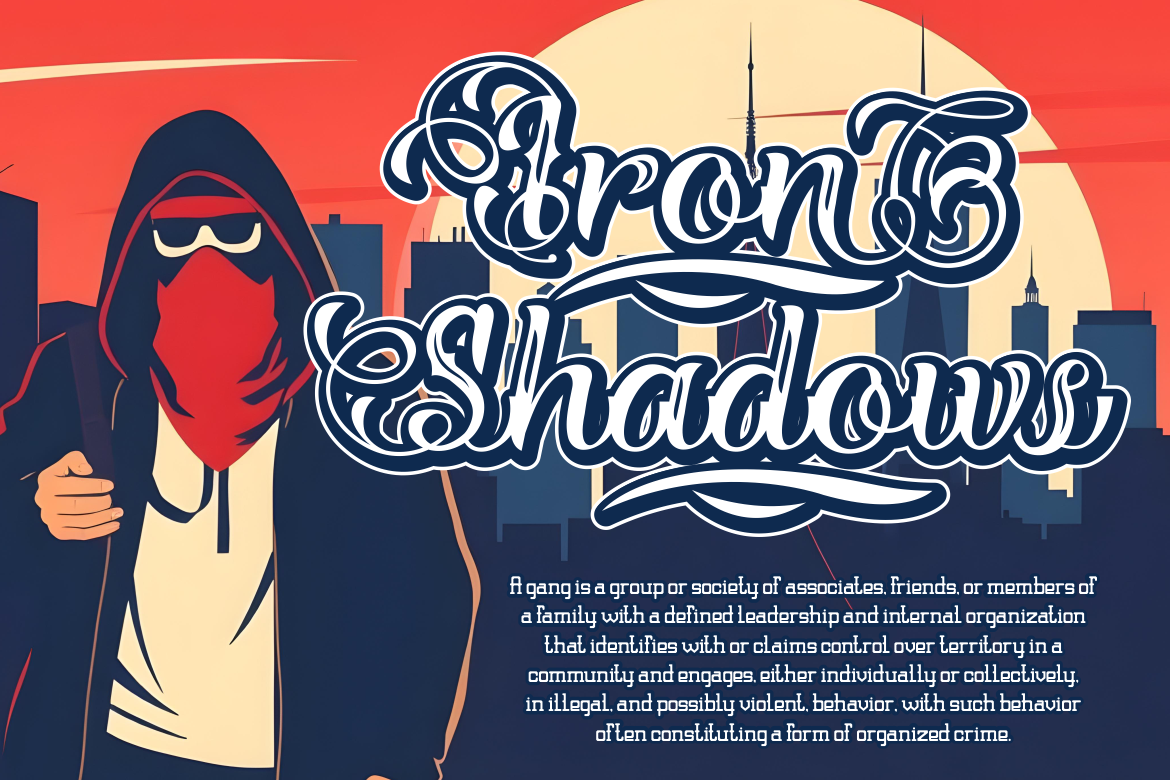
An expressive tattoo font with elegant curves and flowing lines, perfect for script tattoos that symbolize love, freedom, or poetic emotion.
2. Candrika
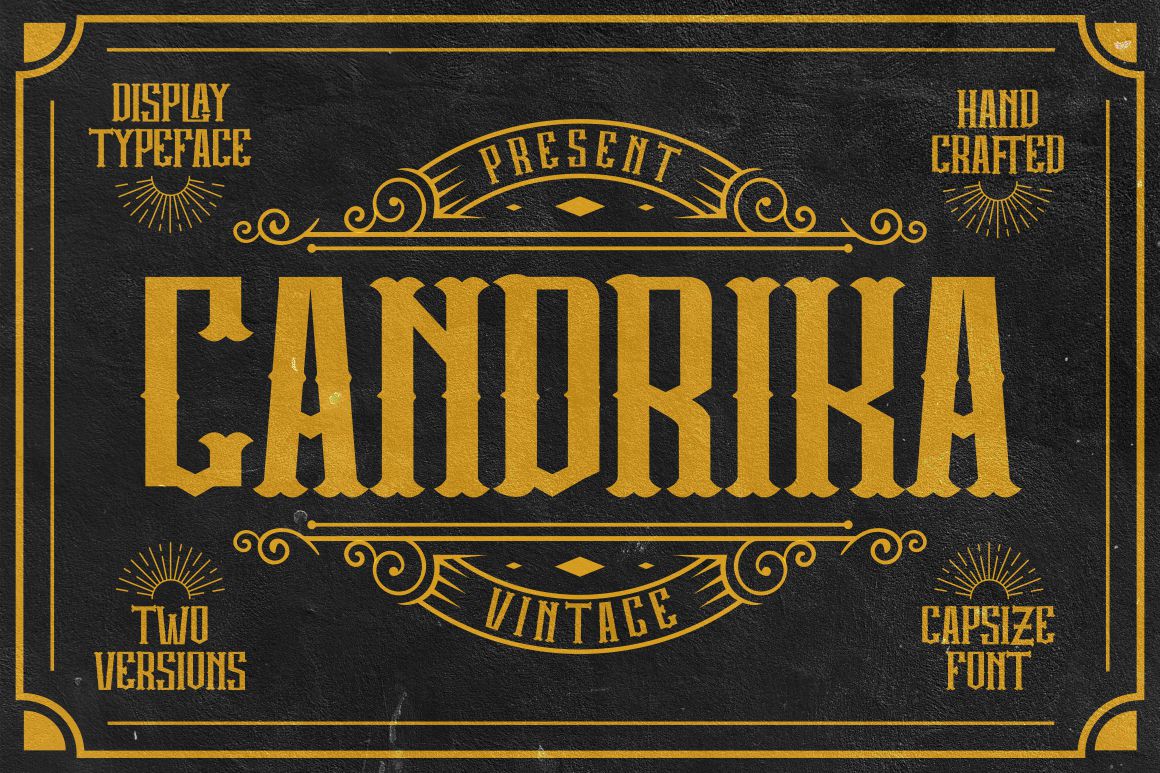
Soft yet confident, Candrika blends calligraphic grace with modern balance, ideal for feminine, inspirational, or personal tattoos.
3. Atlas Celeste
This celestial-inspired design merges cosmic elegance with bold lettering, perfect for tattoos symbolizing destiny and dreams.
4. Stormsong
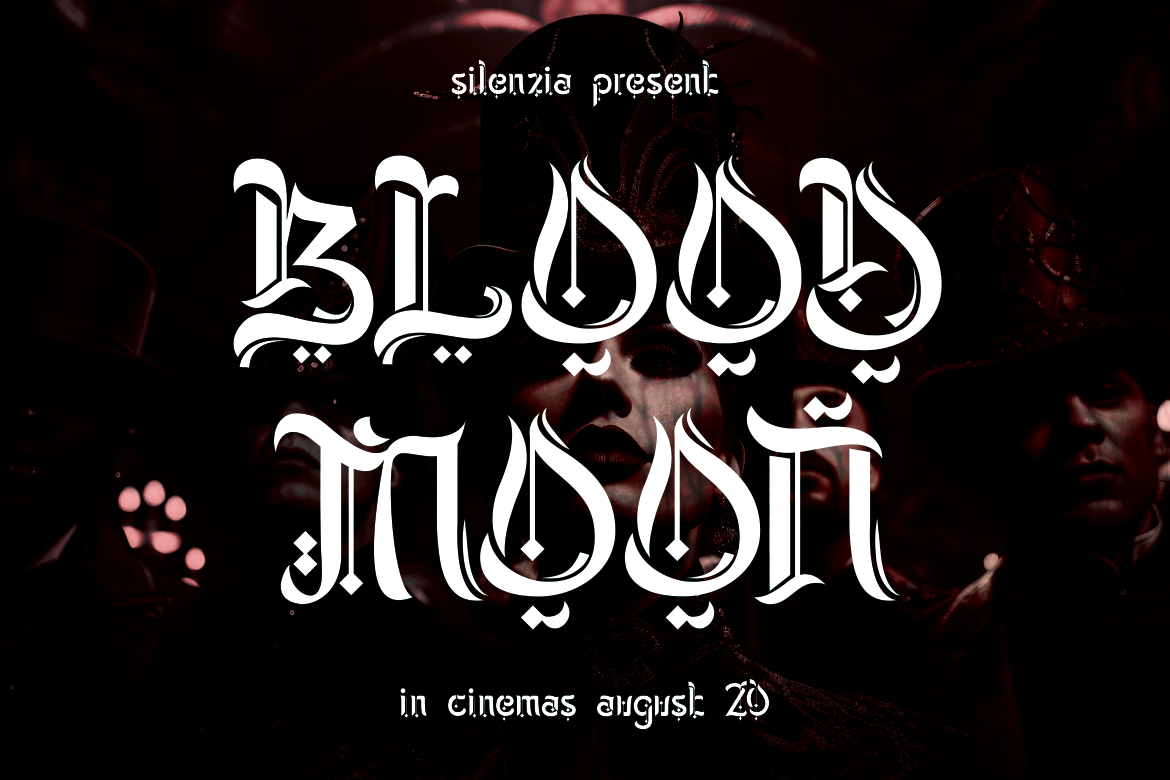
A new-tribal concept font full of rhythm and energy, great for tribal tattoos or designs celebrating nature and strength.
5. Blckpunk
Modern blackletter energy meets punk rebellion. Ideal for edgy tattoos, posters, or gothic-inspired artwork.
6. Imperial Black
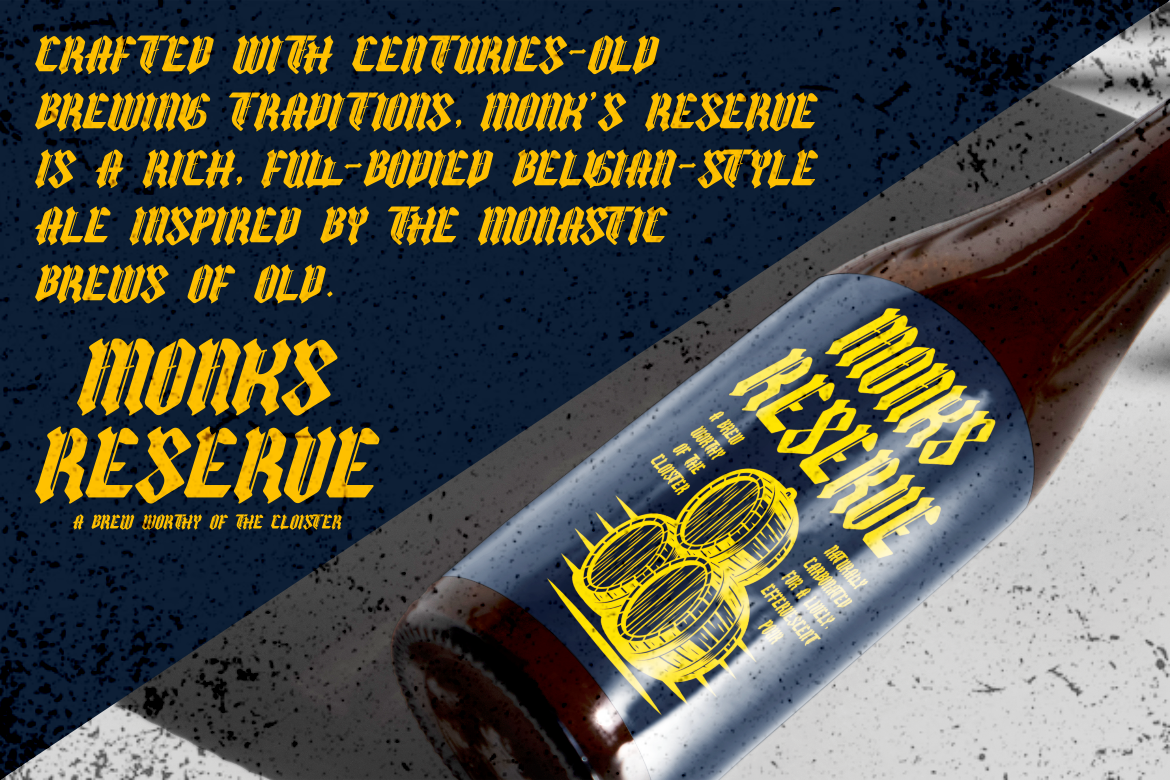
A regal blackletter typeface with structured symmetry, representing power, loyalty, and legacy.
7. Bold Rune
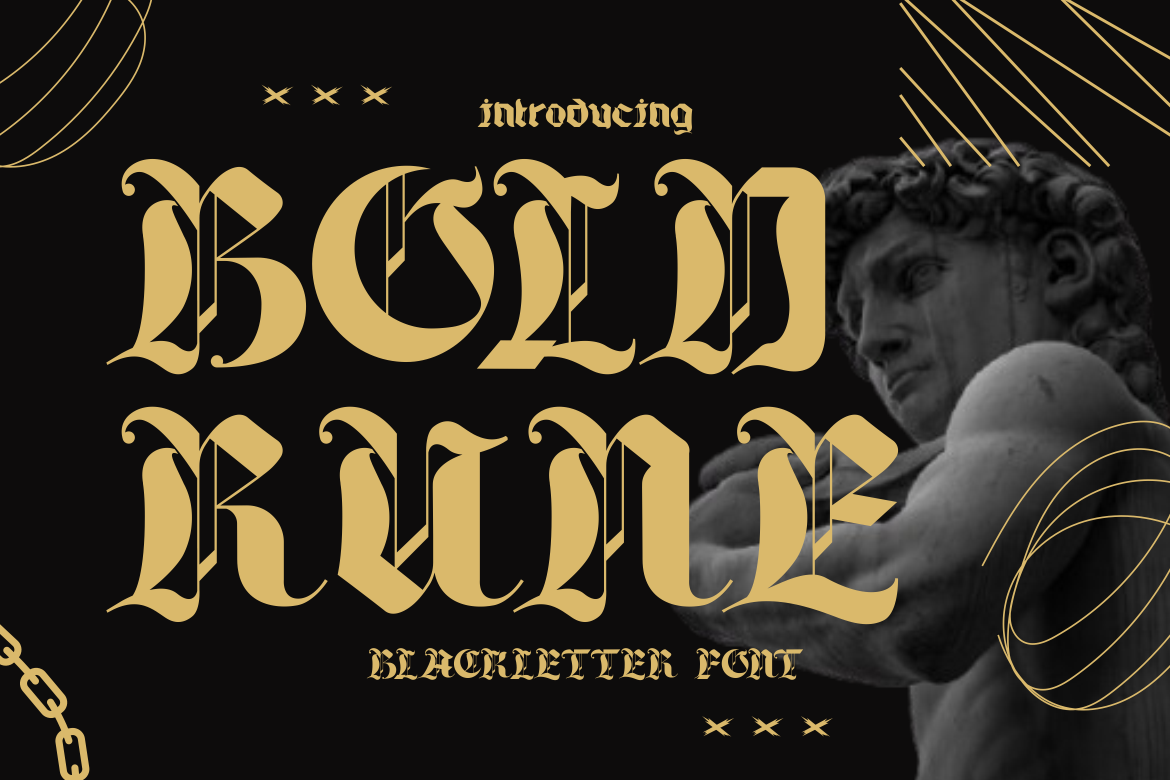
Ancient rune-like strokes combine with modern gothic flair, symbolizing wisdom and mystery.
8. Metal Forge
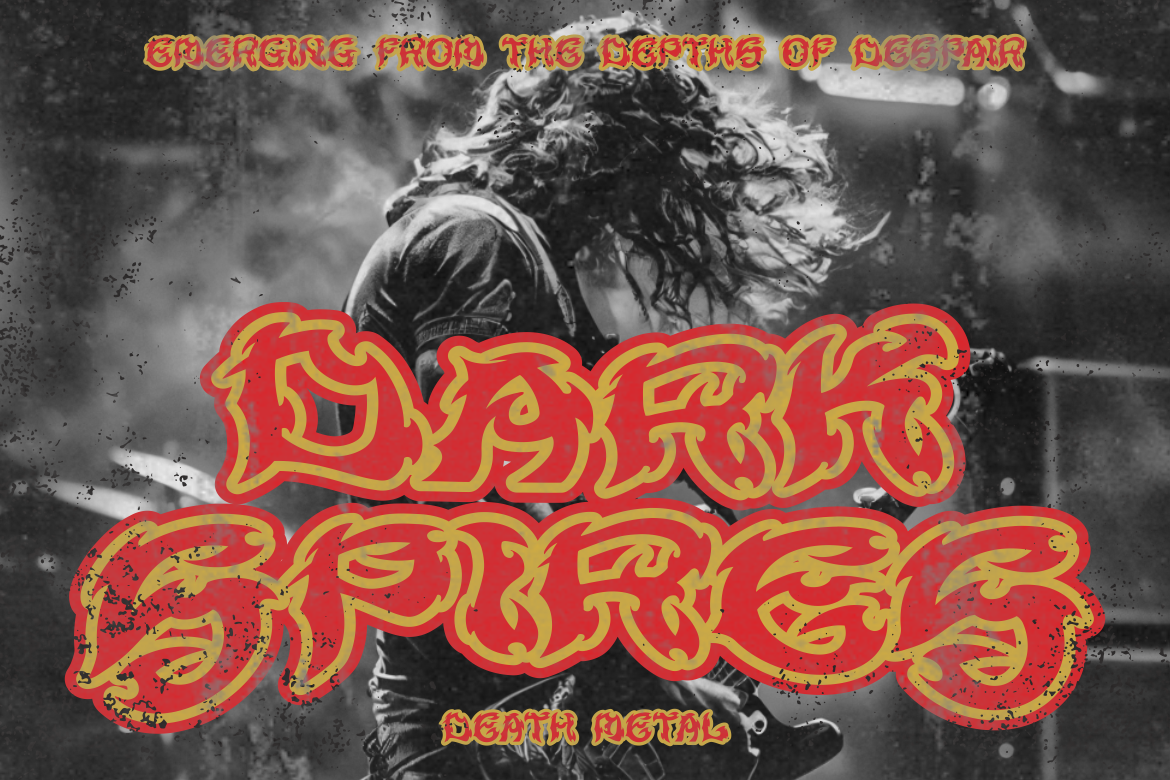
Perfect for heavy-metal or hardcore tattoo styles. Strong, mechanical, and fearless.
9. Cradle Dust
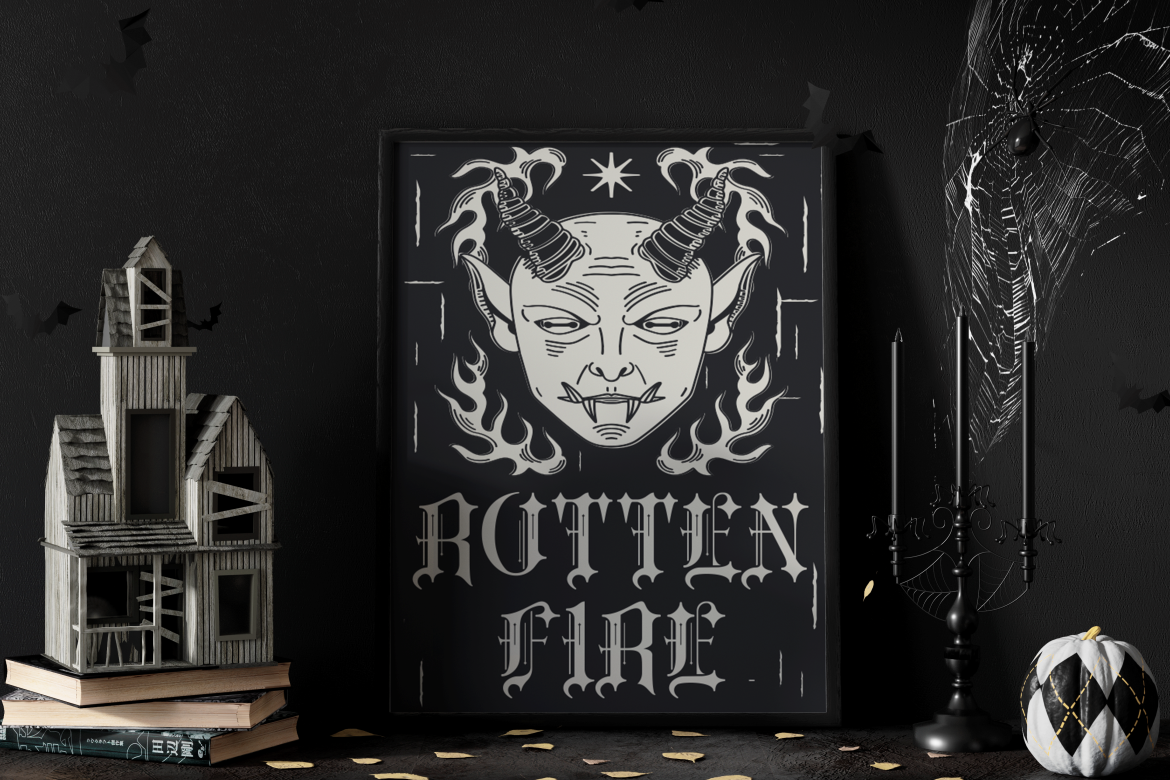
An intricate blackletter design with an emotional touch, balancing darkness and grace.
10. Rusty Gore
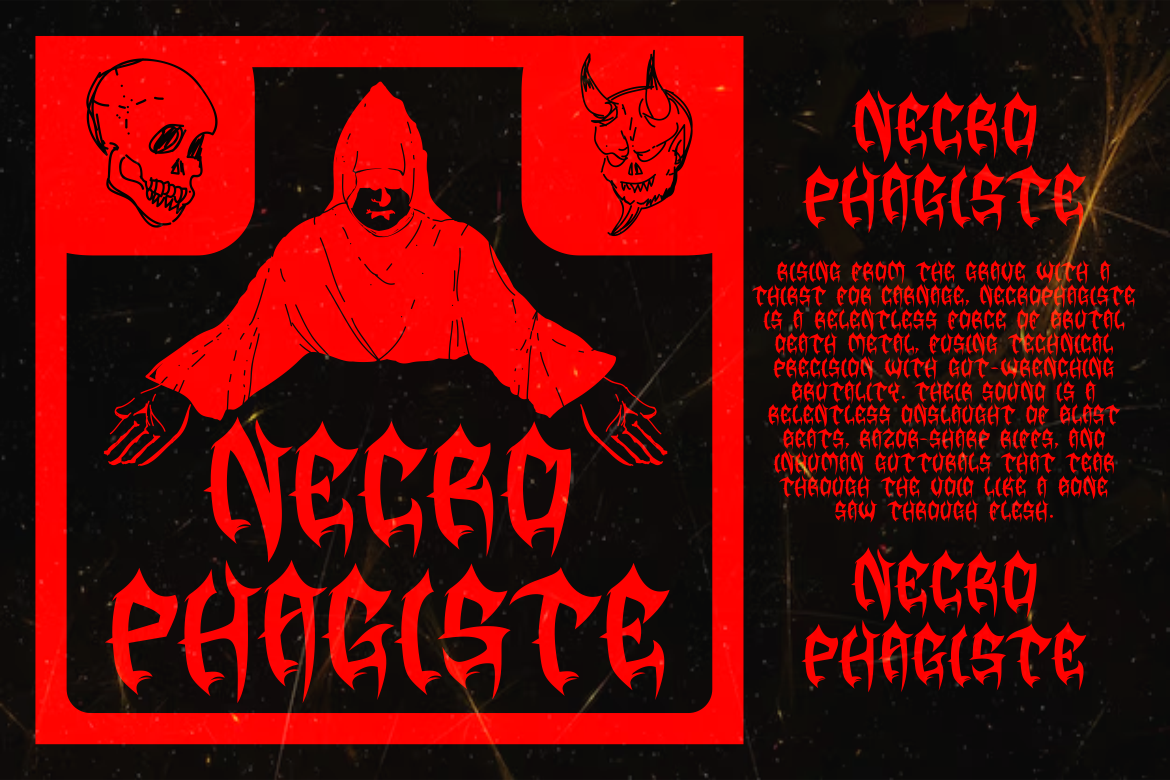
A distressed metal font that embodies raw emotion and defiant personality, perfect for grunge or horror-themed tattoos.
11. Dark King
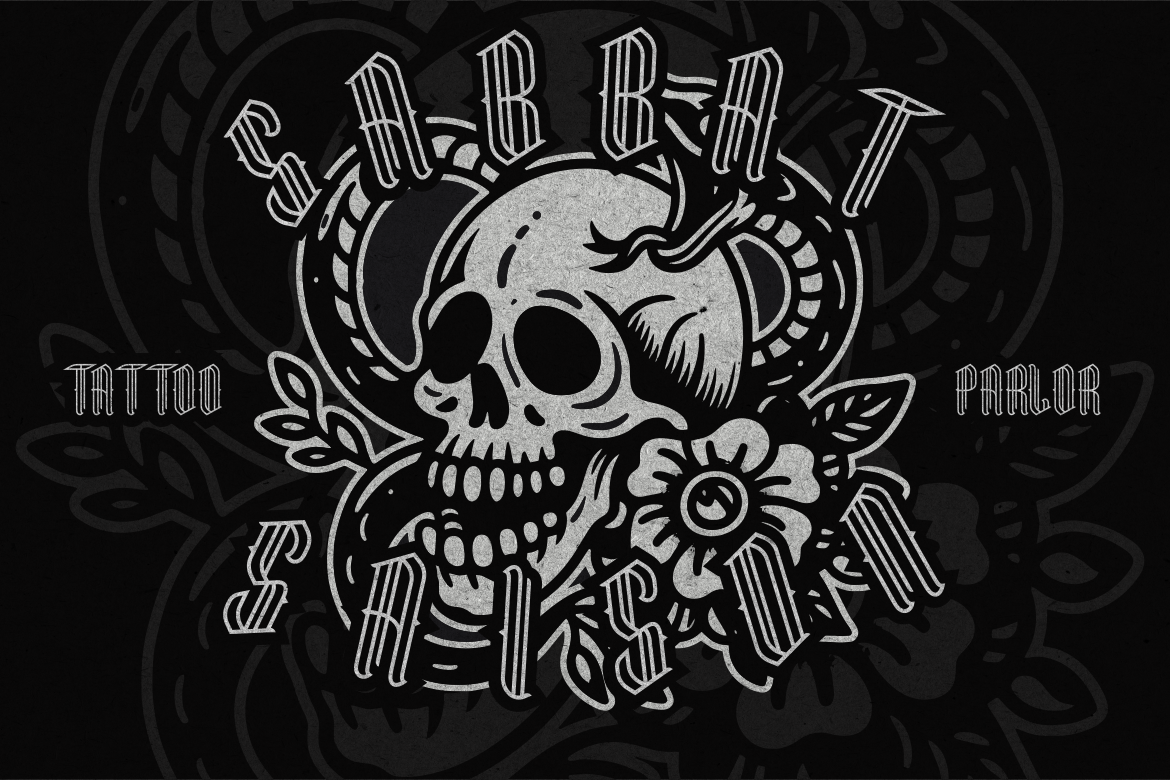
Majestic and gothic, this typeface represents dominance, authority, and mystique, a perfect fit for bold word tattoos.
12. Vulture Kingdom
Hardcore blackletter meets street energy. Its raw strokes are ideal for tattoos that symbolize endurance and rebellion.
13. Drakord
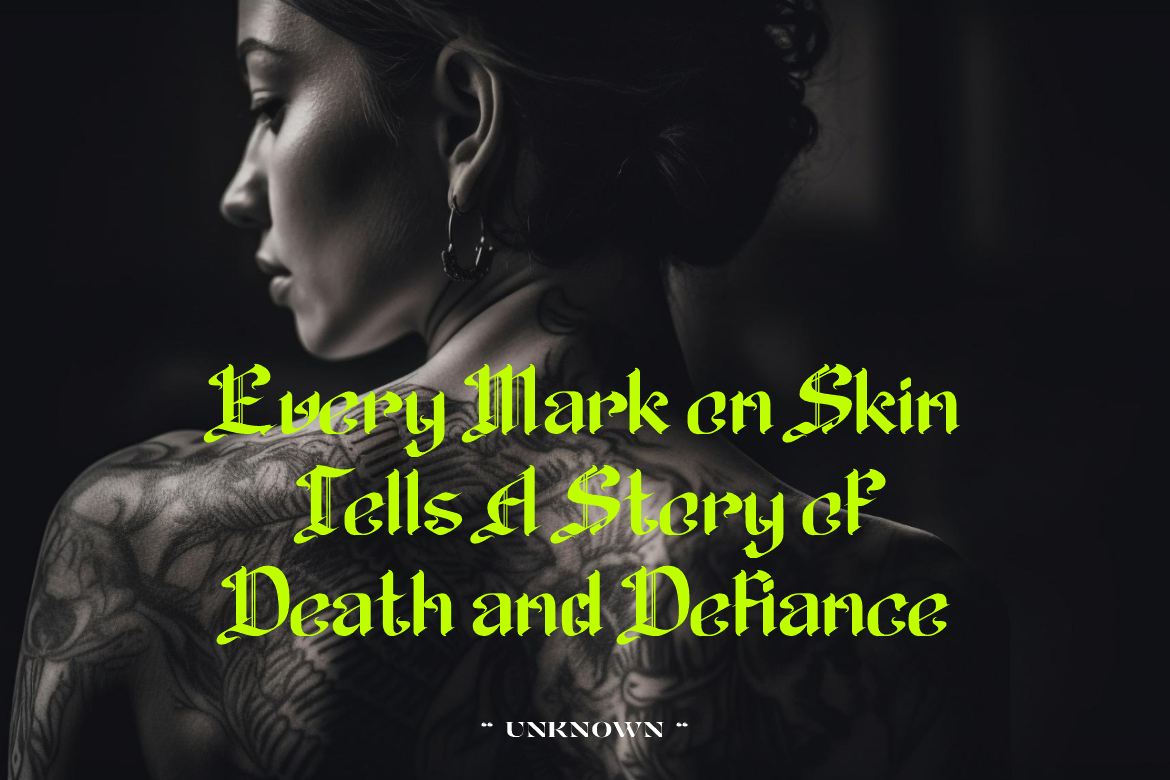
Combines medieval character with modern edge, great for dark fantasy or symbolic lettering tattoos.
14. Black Eoghan
A bold blackletter with refined details, perfect for lettering that demands attention and emotional depth.
15. Drakur
Aggressive yet elegant, Drakur captures gothic aesthetics with sharp precision, ideal for powerful statements.
16. Dark Spire
Tall, narrow forms and pointed arches echo cathedral design, great for tattoos inspired by faith, mystery, or strength.
The Rise of Bold Fonts in Modern Tattoo Culture
In today’s tattoo scene, bold fonts are back. Artists are moving beyond delicate scripts to adopt heavier, more architectural typefaces. This trend mirrors broader shifts in design and culture where confidence, individuality, and power are celebrated.
Bold typefaces create tattoos that are readable, long-lasting, and visually commanding. They age gracefully on the skin while maintaining their graphic integrity. Fonts like Dark King or Metal Forge embody this philosophy loud, fearless, and unforgettable.
Bold fonts in tattoo design prove that ink can be more than art, it can be identity, power, and timeless expression.